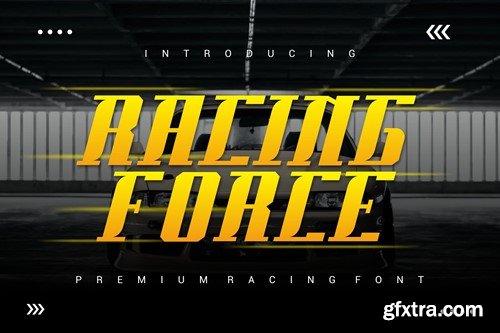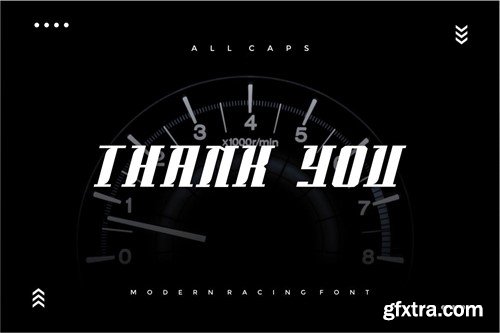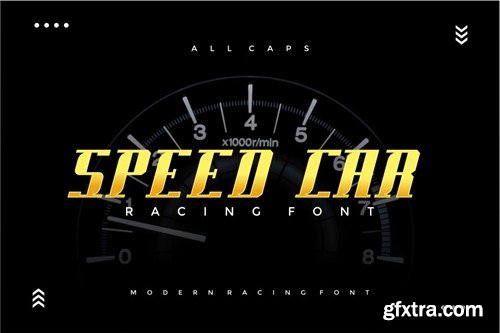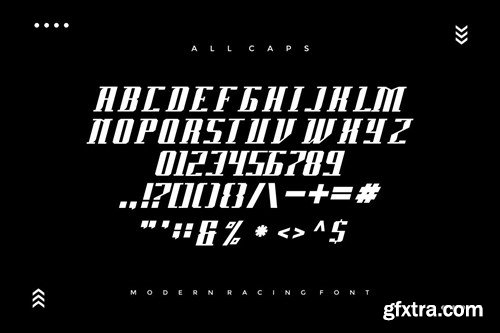
赛车力 - 现代运动字体KVRR6HT
Racing Force - Modern Sport Font
Introducing our new product Racing Force - Modern Racing Font Racing Force is a bold, modern display font with playful flair, ideal for attention-grabbing headlines, logos, and diverse design projects. Versatile and readable in both digital and print, Racing Force adds a dynamic touch to your message. availlable